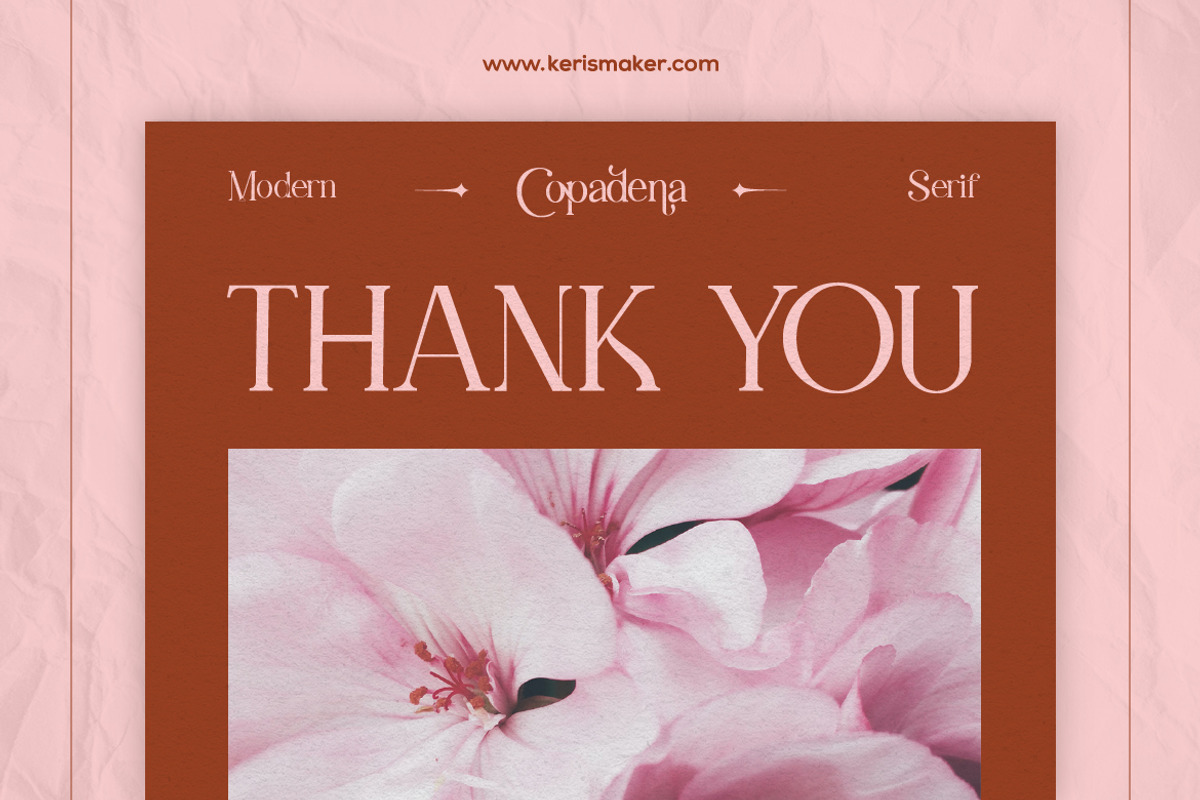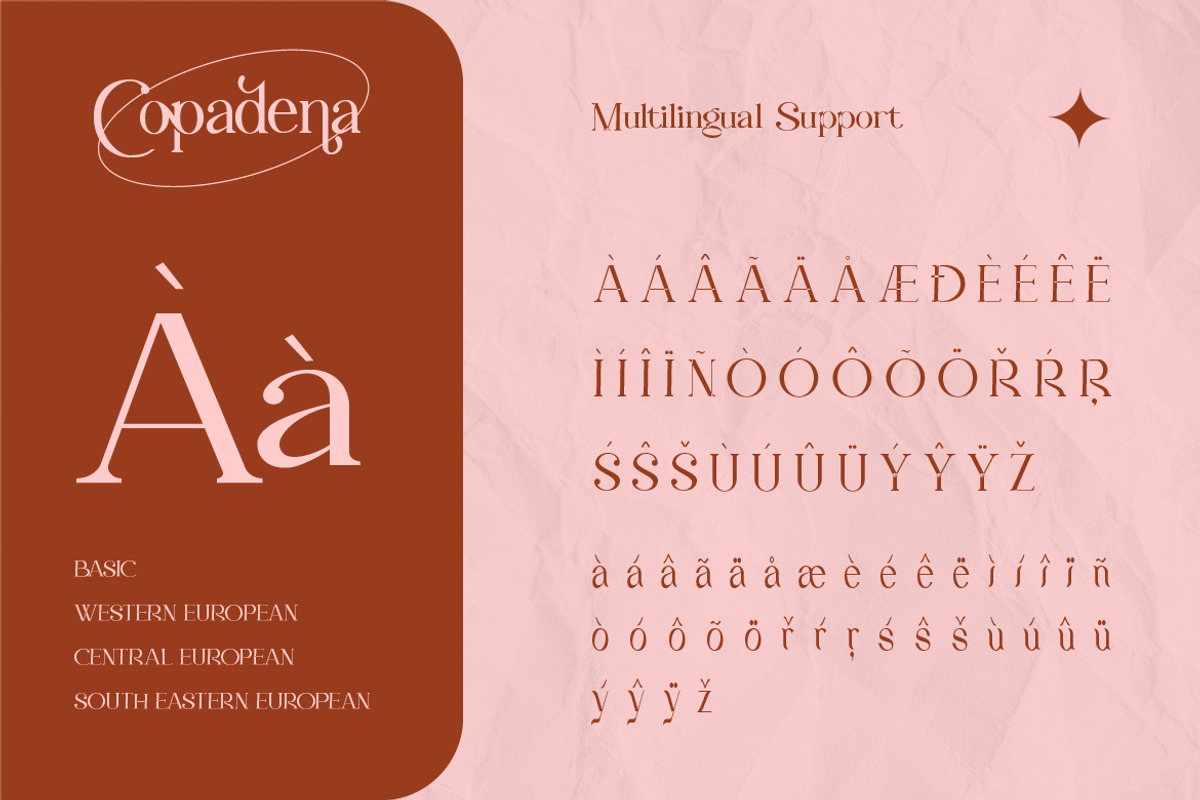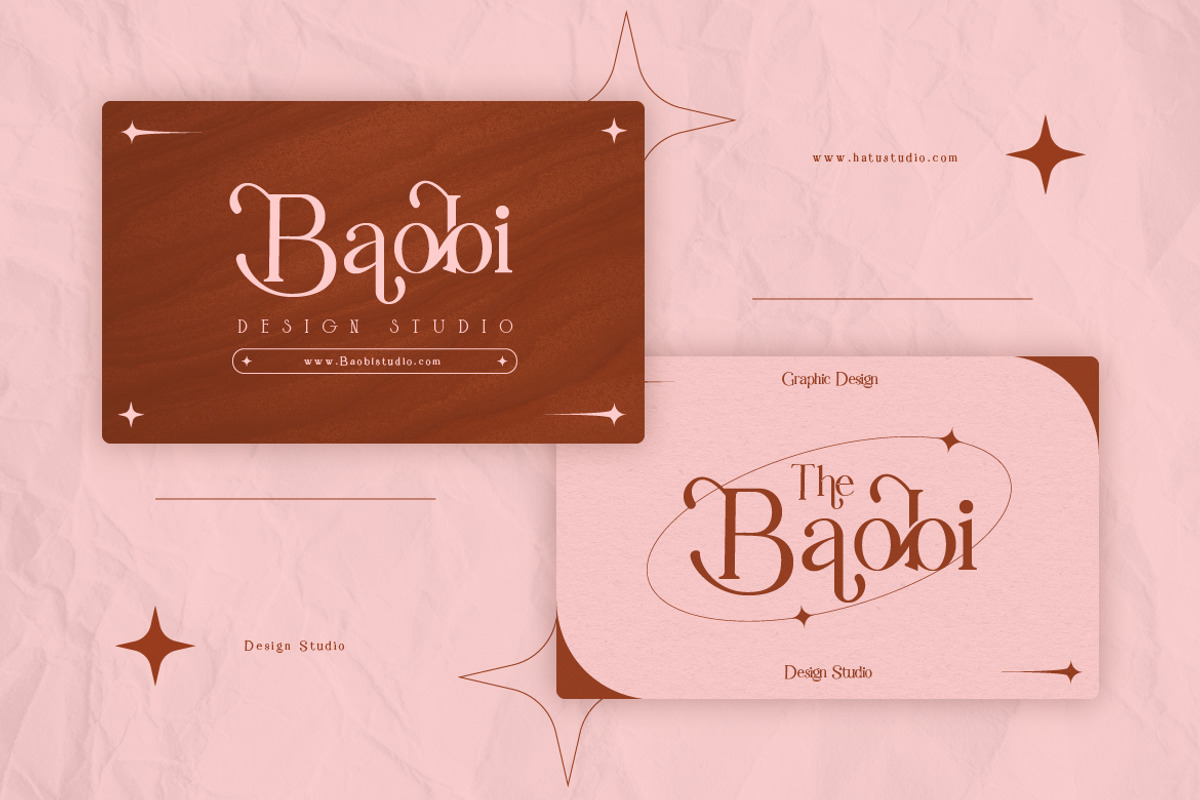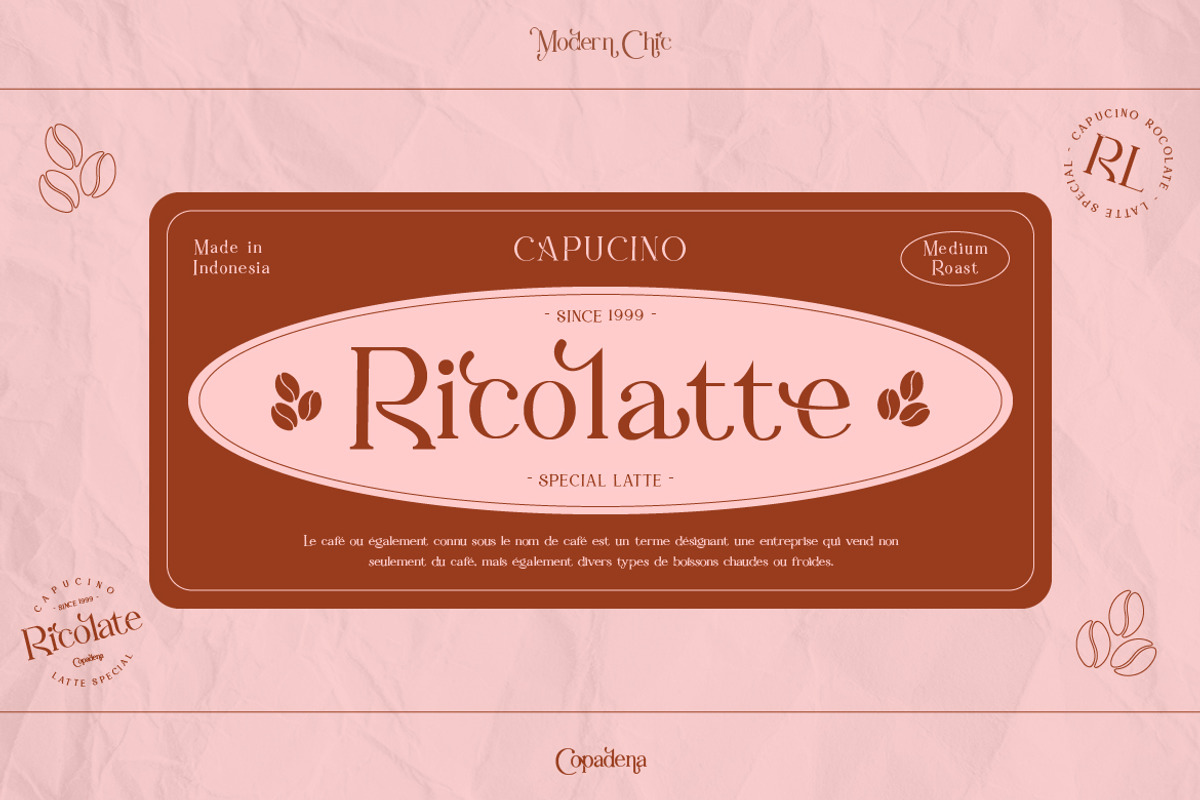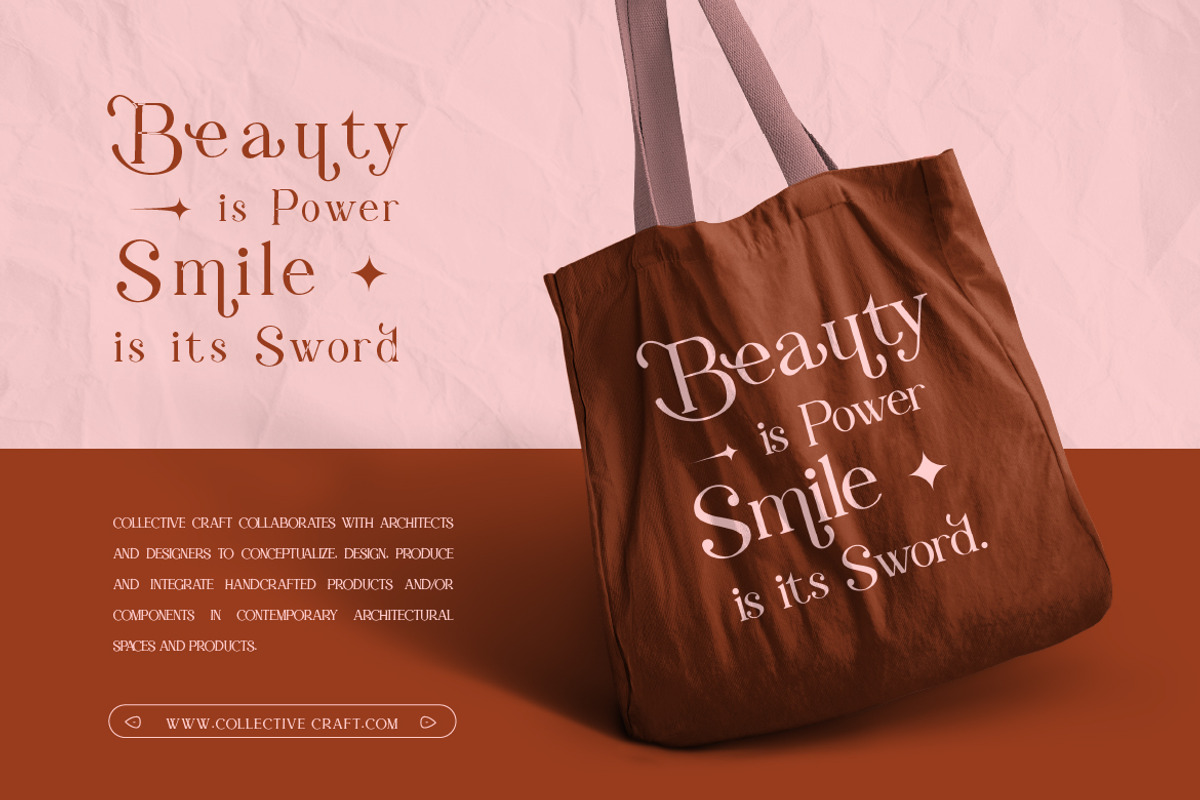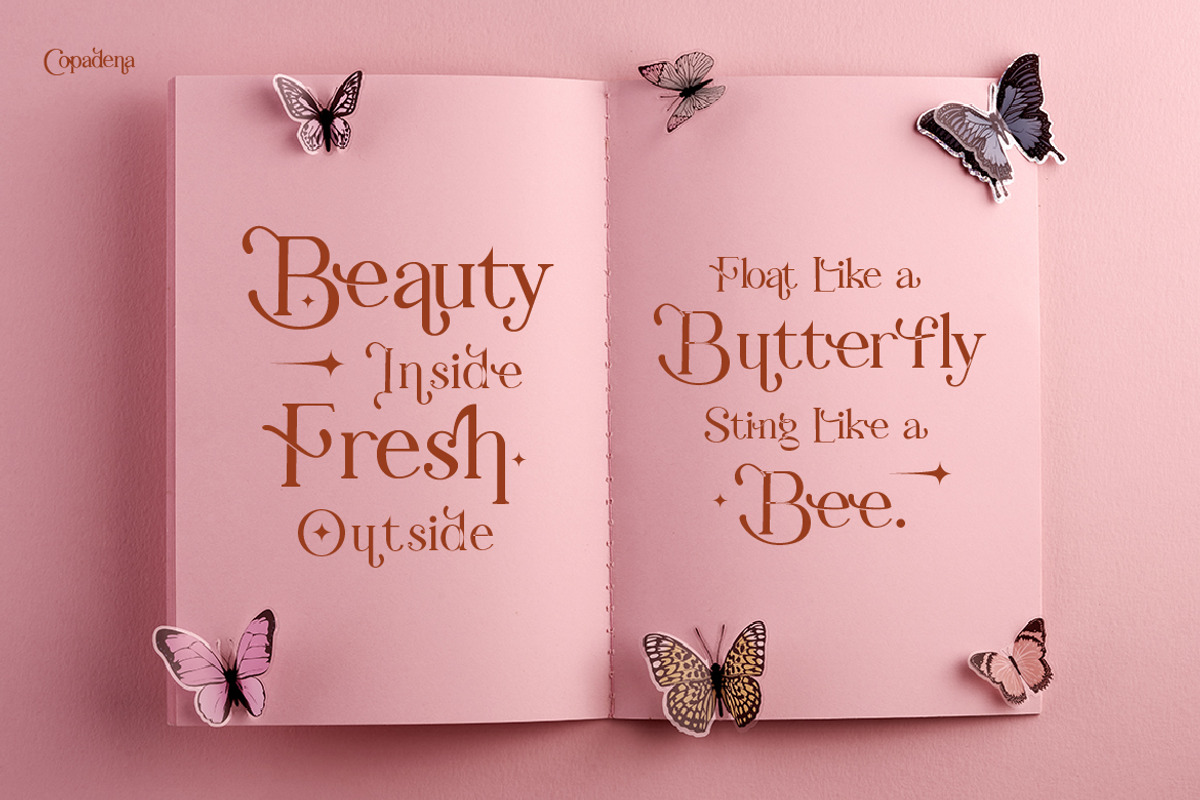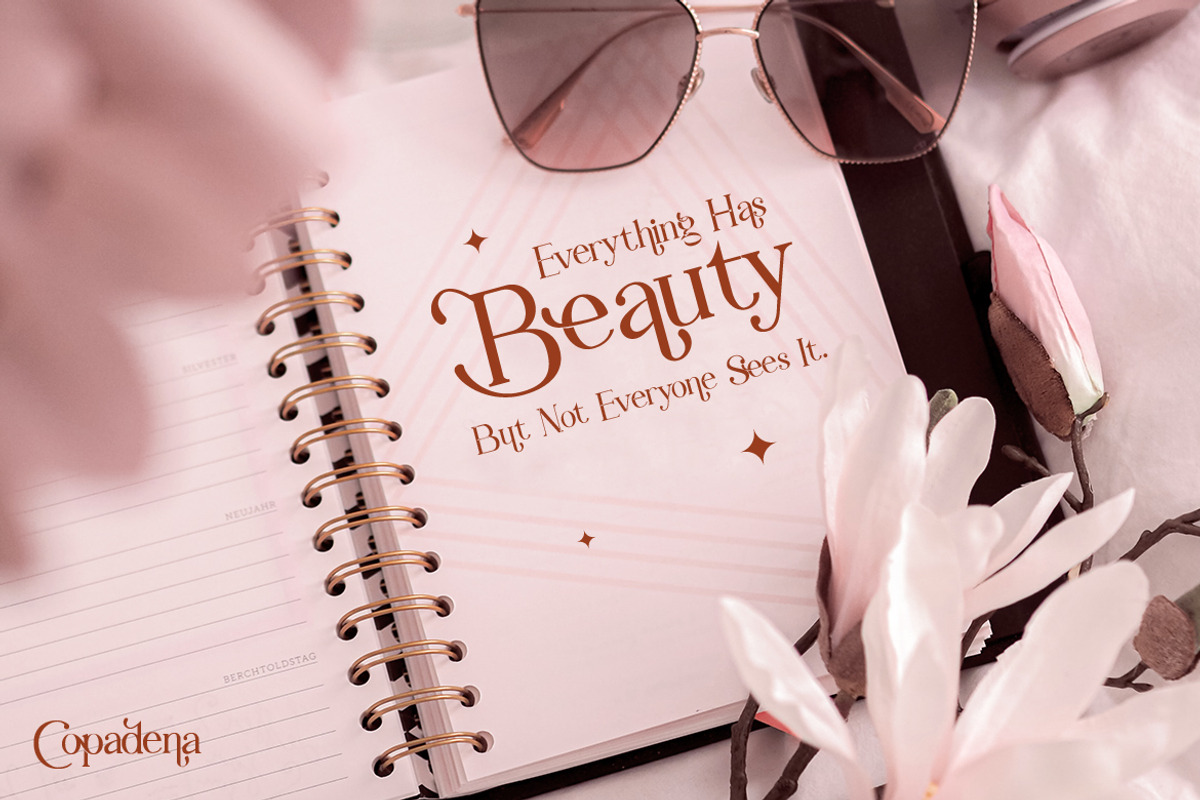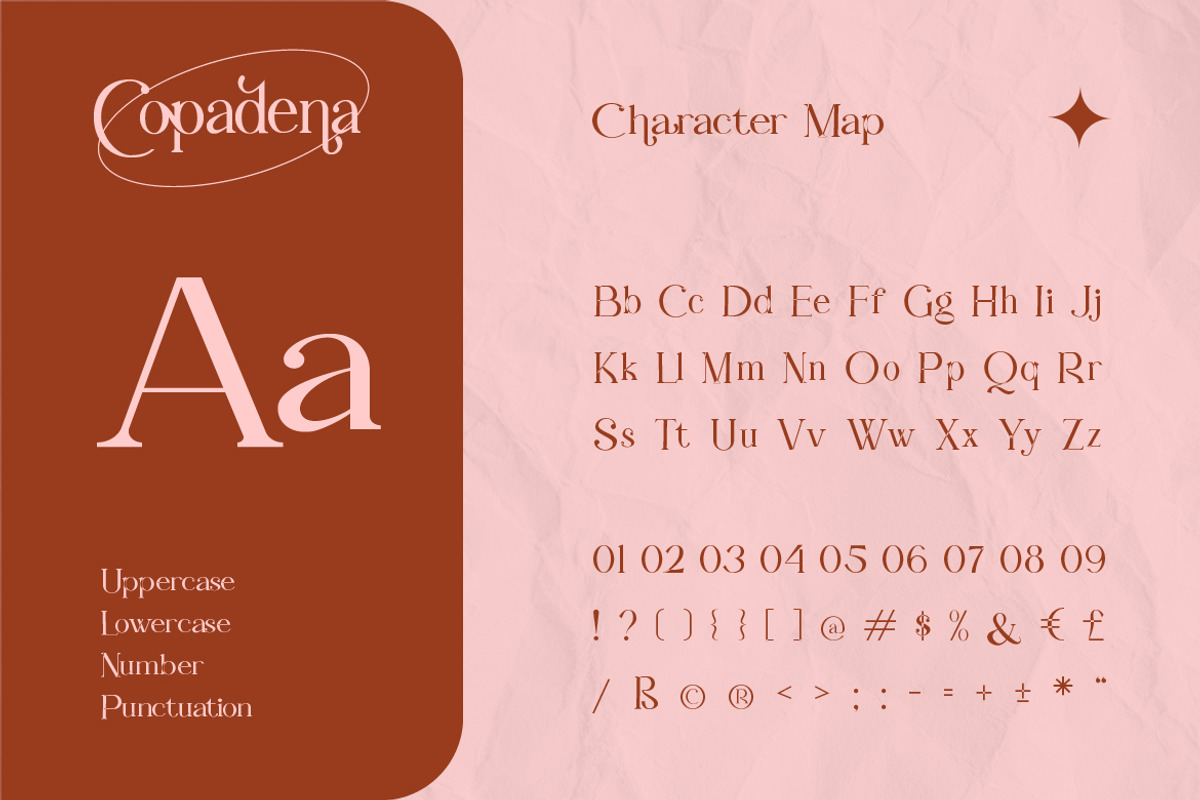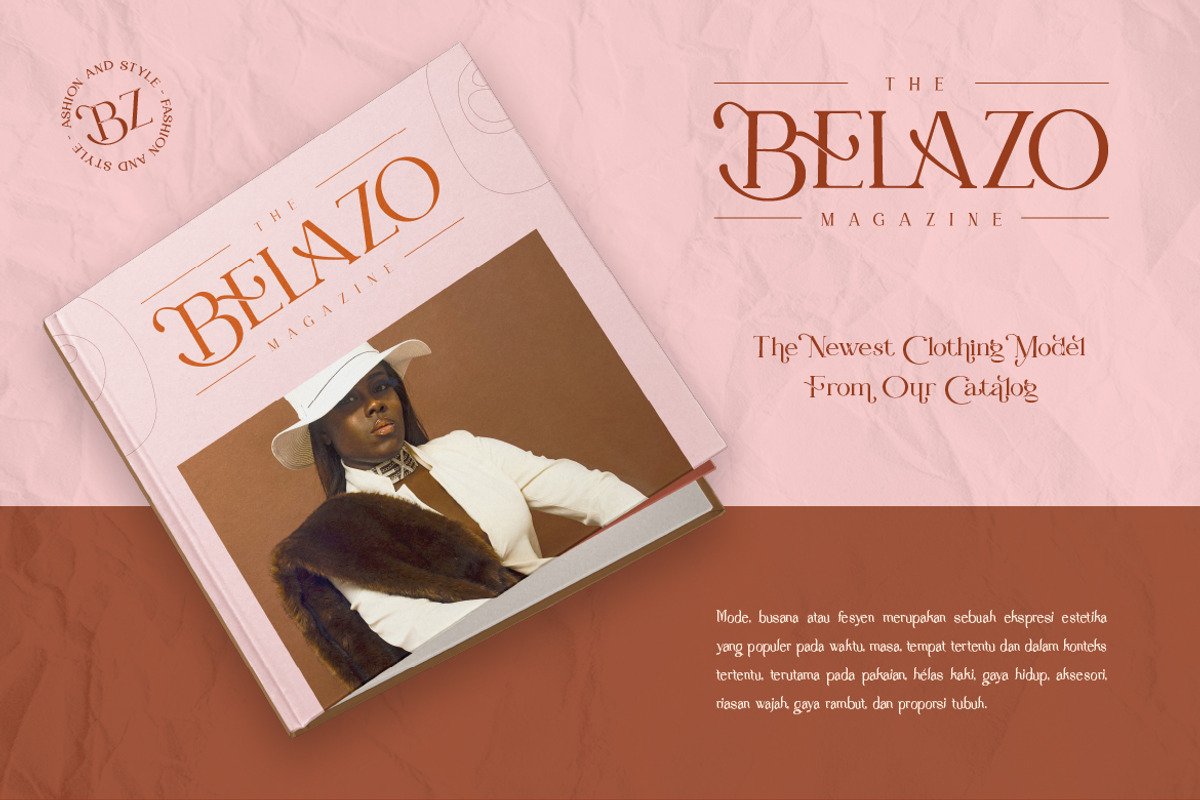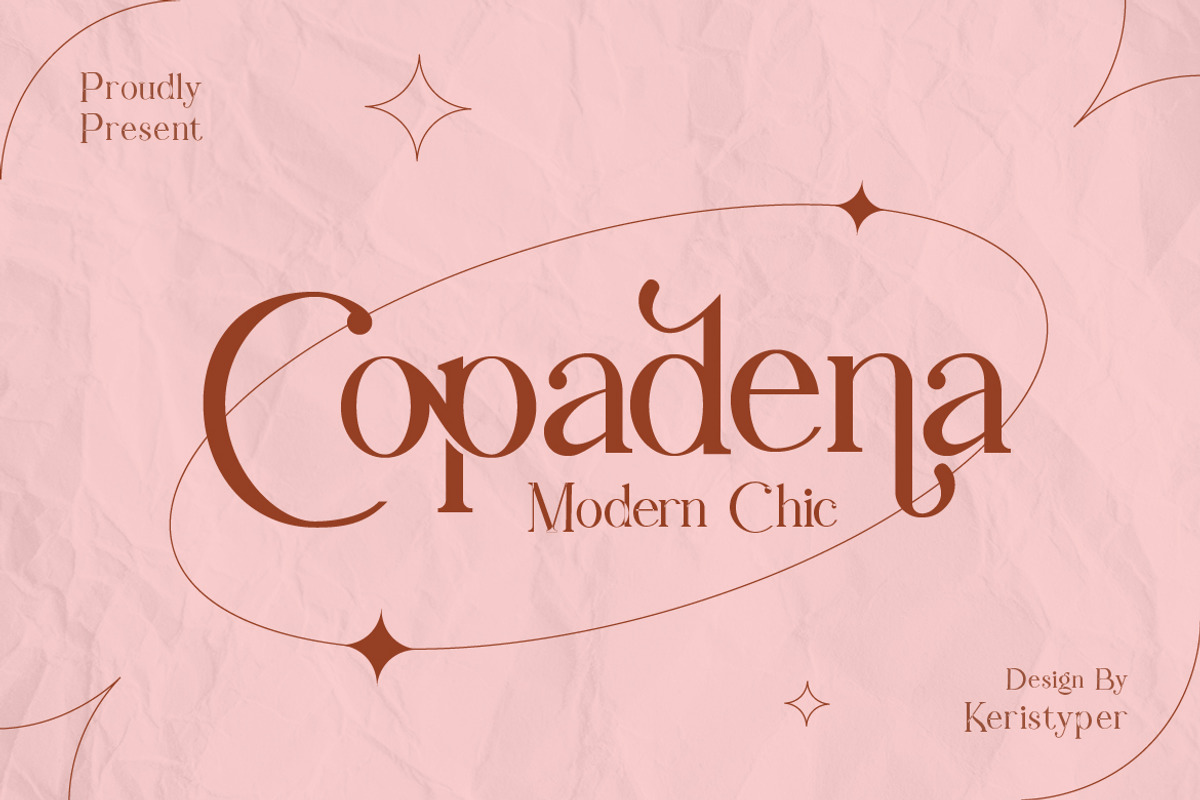
Copadena
Copadena is a stylish font that is Modern - Chic, it's an elegant and unique font. This font is good for logo design, Social media, Movie Titles, Books Titles, short text even long text letters, and good for your secondary text font with sans or serif.
Featured:
- Standard Uppercase & Lowercase
- Multilingual : ä ö ü Ä Ö Ü ß ¿ ¡
- Alternate & Ligature